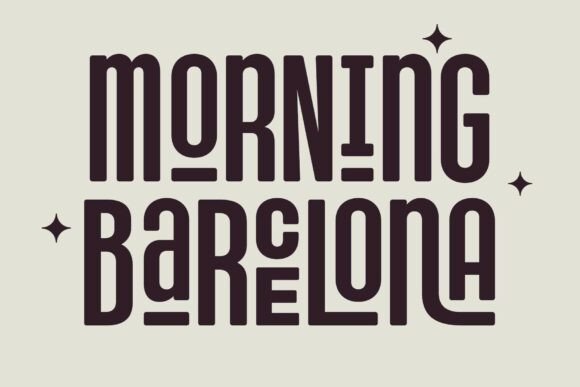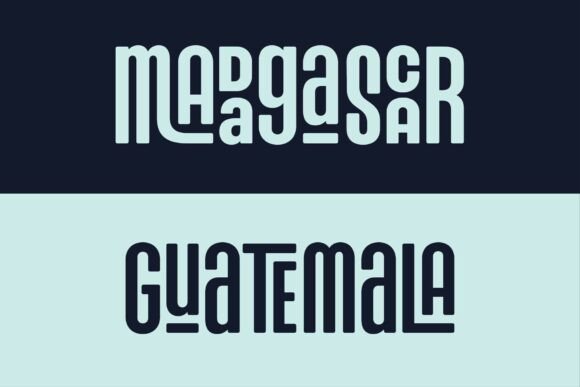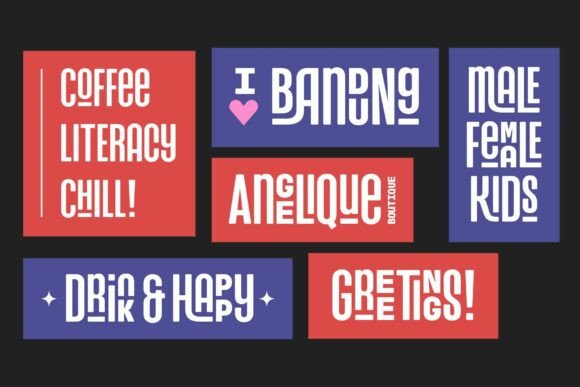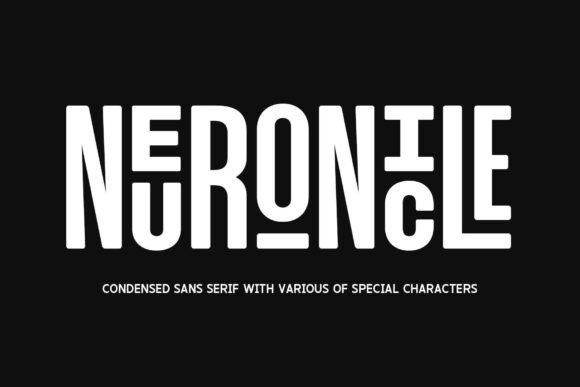
Introduction to Neuronicle Font
Neuronicle is a condensed sans display font with a playful yet expressive personality, perfect for designs that call for boldness with a touch of elegance.
Its bold weight and smooth, rounded corners create a relaxed, friendly vibe while maintaining a sense of modern sophistication, making it ideal for projects that need to stand out with style Carefully crafted for headlines and display use, Neuronicle is packed with creative potential.